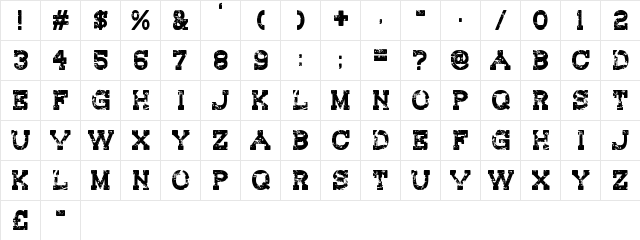
Redwood Creek Regular
Design Context for Redwood Creek Typeface
Redwood Creek taps into classic Western woodtype traditions — bold, characterful, and impossible to ignore.
Perfect for barbecue restaurants, country music branding, vintage poster design, and rustic packaging.
Font Pairing: Combine Redwood Creek with a simple slab or neutral sans — period-accurate companions reinforce the vintage feel without competing for attention.
Pro Tip: Pair Redwood Creek with aged textures or distressed backgrounds to amplify its vintage personality.